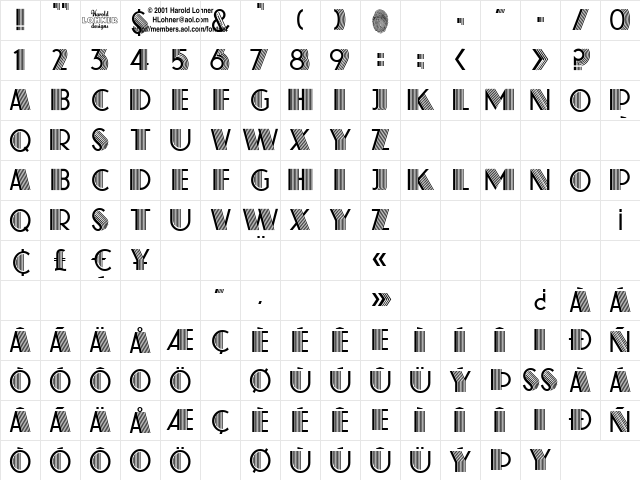
Atlas Regular
Copyright: Atlas computer font v1.1 ©2001 Harold Lohner "  " http://members.aol.com/fontner Based on a classic Art Deco font . Formerly called "Farouk"
Design Context for Atlas
Atlas is a composed and adaptable typeface that performs quietly and consistently across a wide range of design contexts.